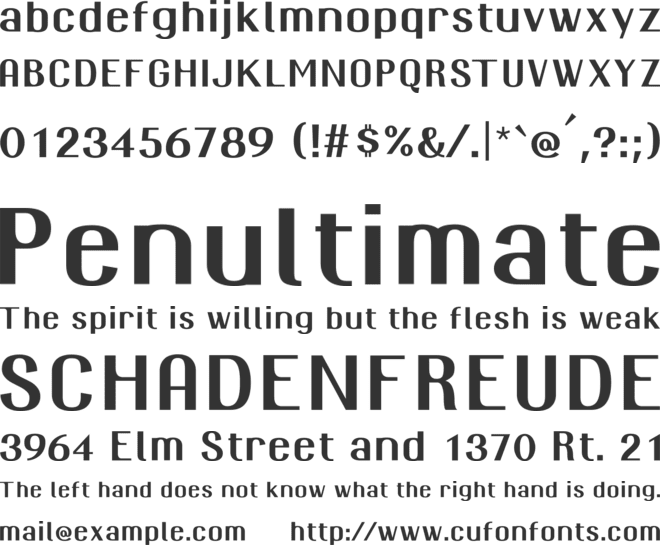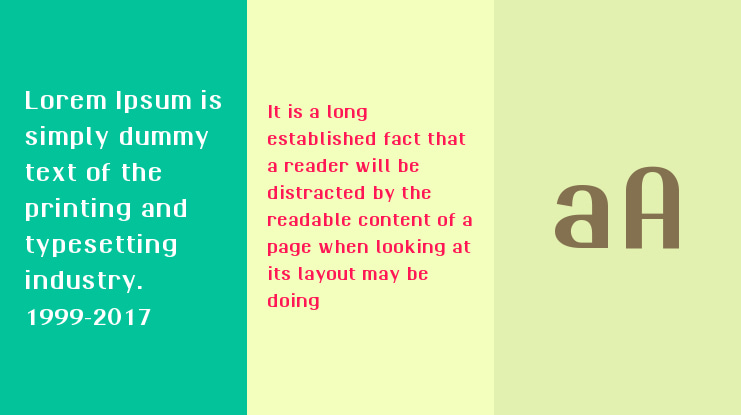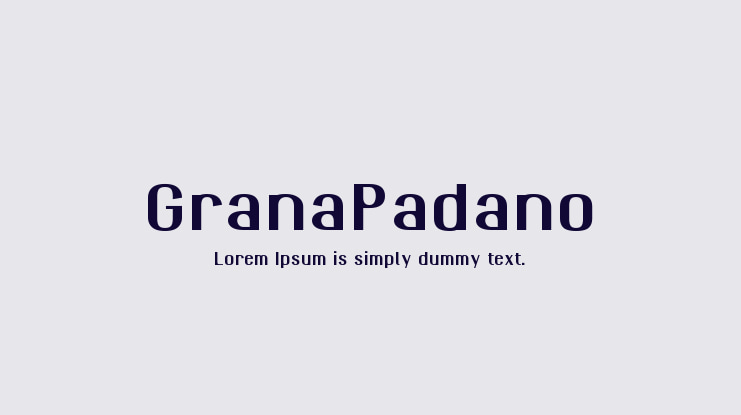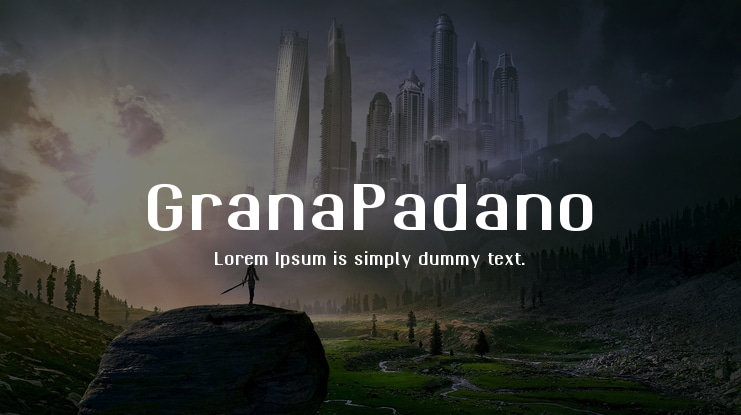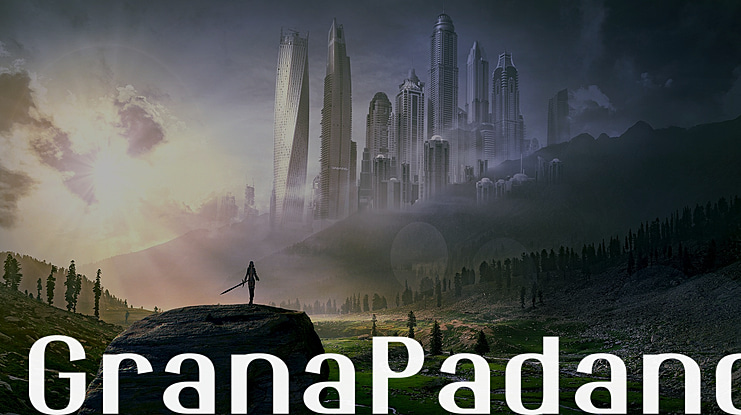
Grana Padano is a medium-weight upright sans-serif font in roughly the same family as Apple Computer’s historic Chicago font. It has support for Latin and Cyrillic character sets, containing sufficient characters for Latin-0 through Latin-10, as well as support for Vietnamese and all major Slavic Cyrillic-based languages. It uses OpenType tables for diacritic placement.